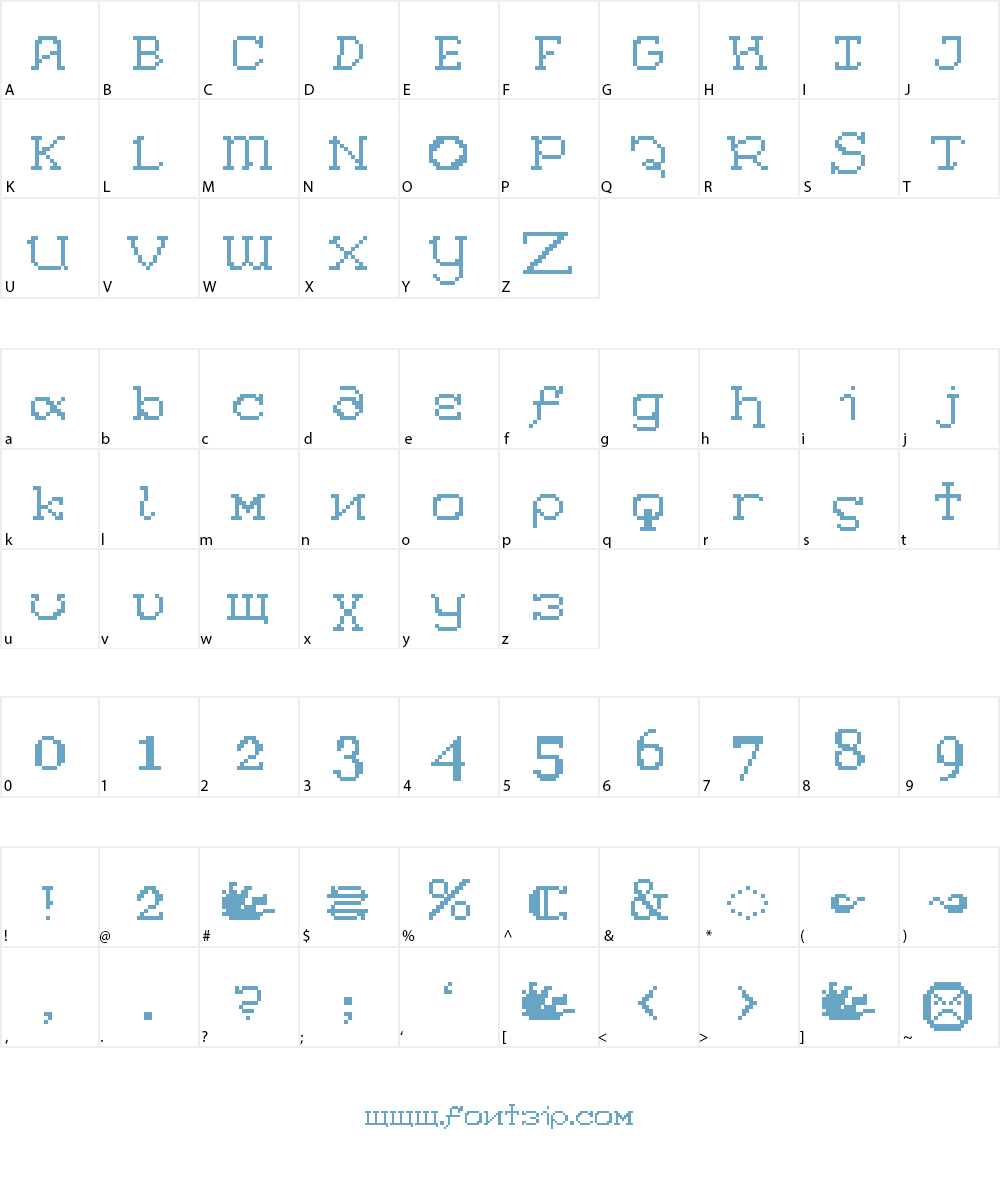
Fajroŝtormo is a mixed-faux-foreign bitmap serif font that was made back in 2018, as it was only available exclusively in the BitFontMaker2 Pixel Font Gallery. It is now up on FontSpace and will be spreading this on other font sites. The title means "fire storm" in Esperanto.